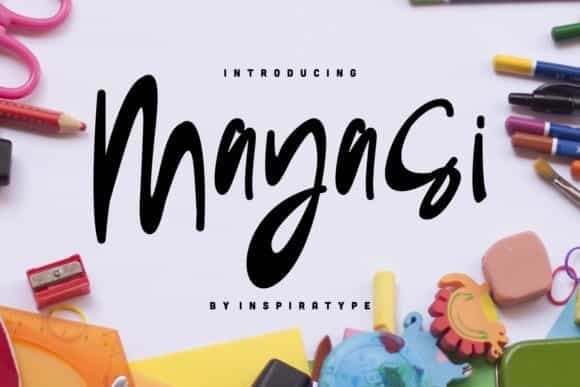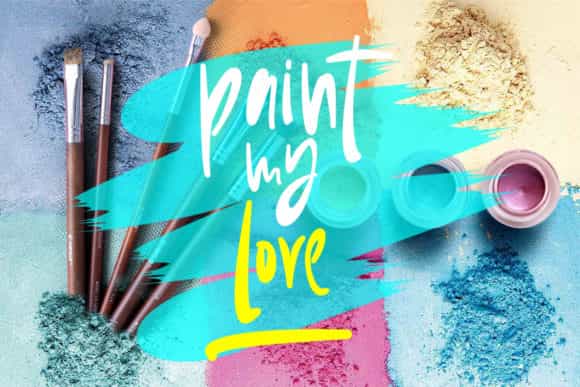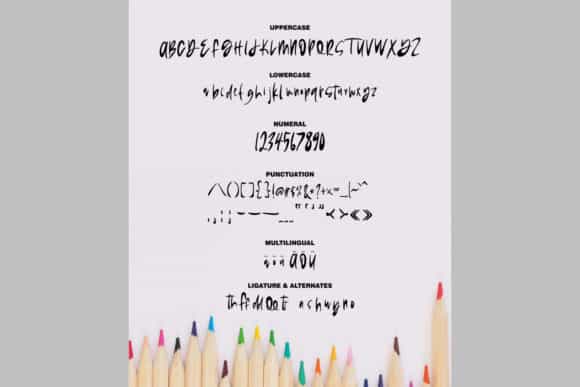
Discover Mayasi Script Font, part of the Brush Calligraphy Handwritten collection—a versatile and unique font perfect for adding a personal touch to your projects. Download it for free and enjoy crafting designs with style, from invitations to social media posts. This font is available exclusively for personal use, giving you the freedom to create without limits. Unlock your creativity with Mayasi Script Font today!
Mayasi is a recently created handmade calligraphy font. It is a font that is very simple and classy, so it is very suitable for greeting cards, branding materials, business cards, quotes, posters, and many more